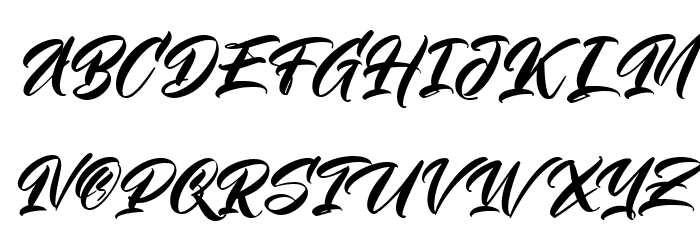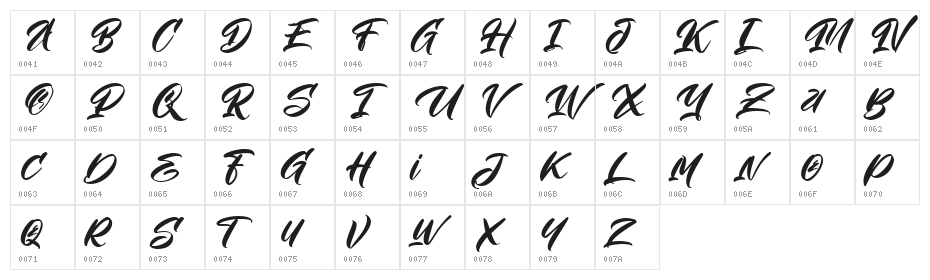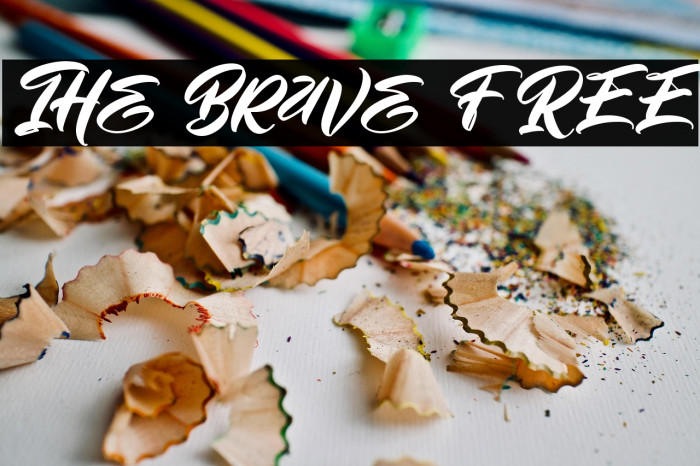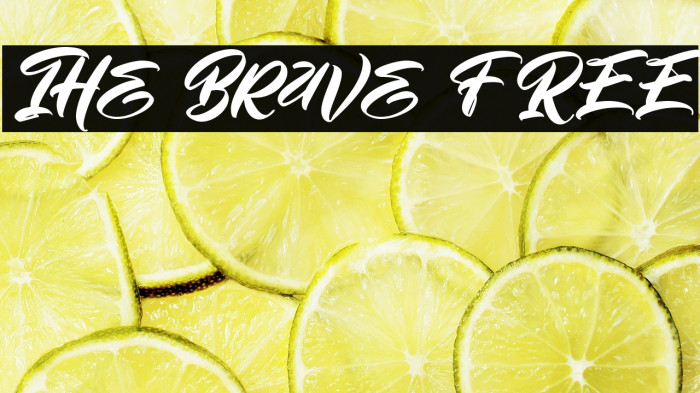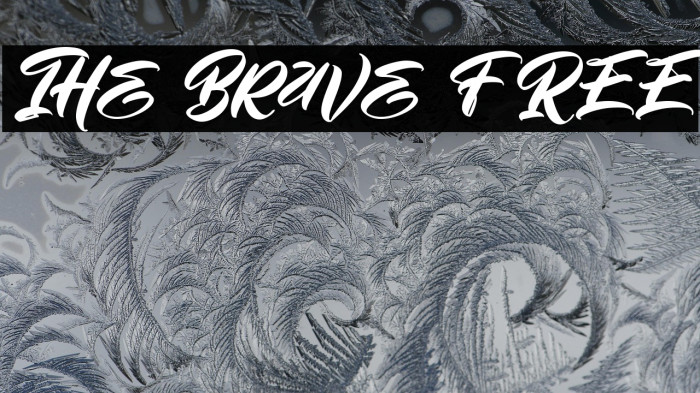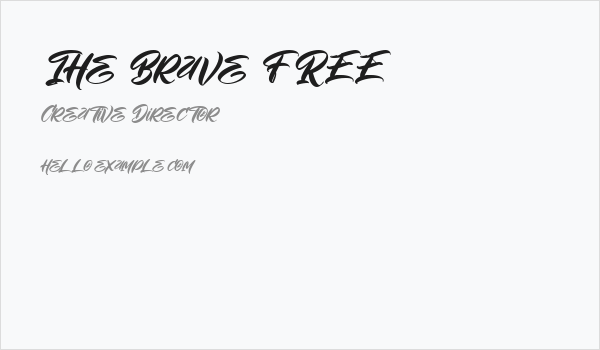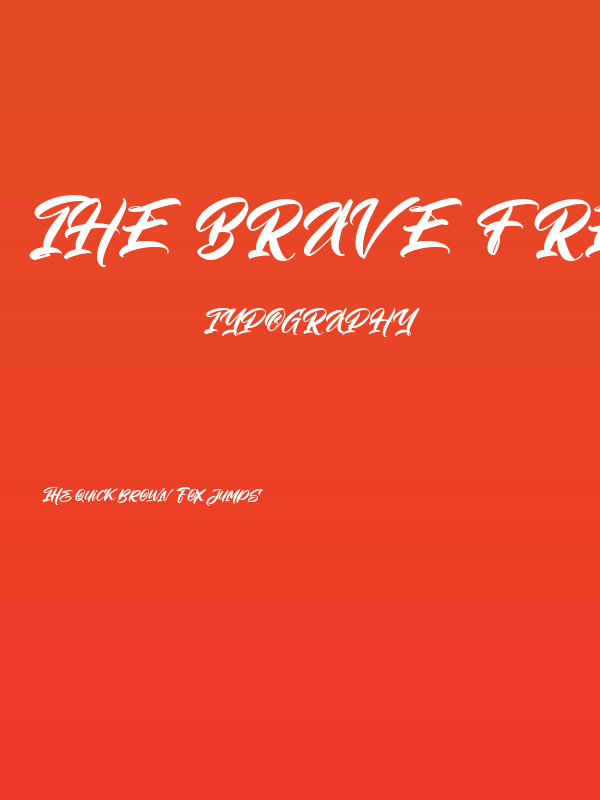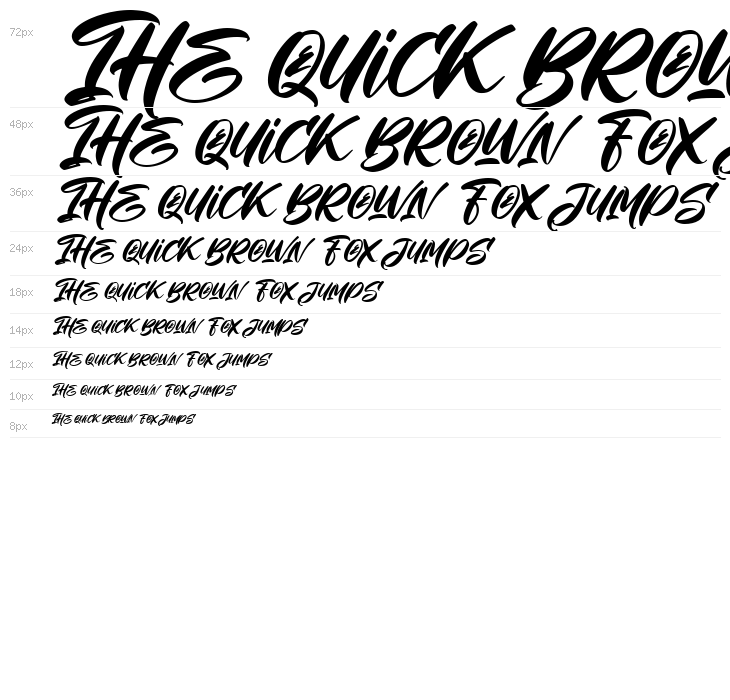
The Brave FREE Font
The Brave FREE Description
This font features a bold and dynamic script style, characterized by its flowing, cursive letterforms that convey a sense of movement and energy. The uppercase and lowercase letters are crafted with a consistent stroke weight, creating a harmonious and cohesive appearance. The font's design includes elegant swashes and flourishes, adding a touch of sophistication and flair. The characters are slightly slanted, enhancing the fluidity and grace of the text. With its bold presence and artistic flair, this font is ideal for making a statement in any design project.